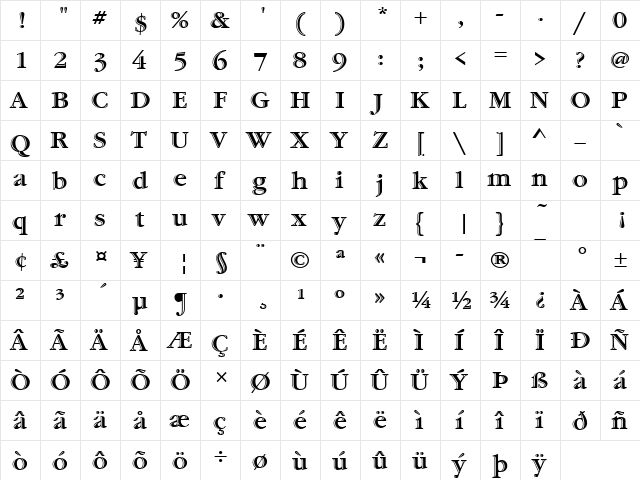
GaramondHanItcD Regular
Design Context for GaramondHanItcD Typeface
GaramondHanItcD takes a measured approach to typography — its balanced proportions and neutral character make it a reliable workhorse for both digital and print work.